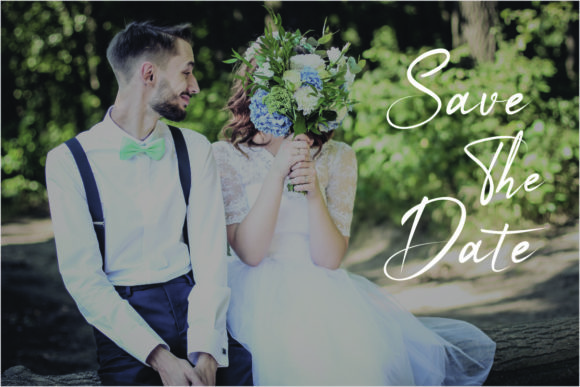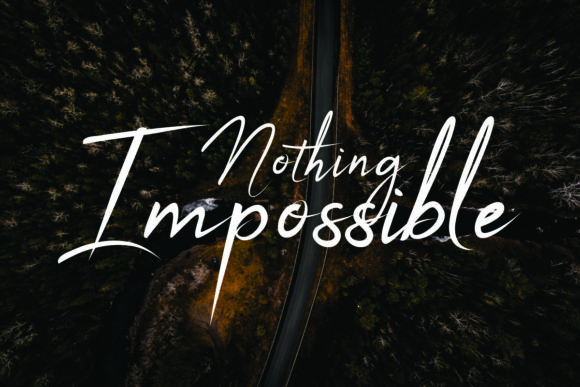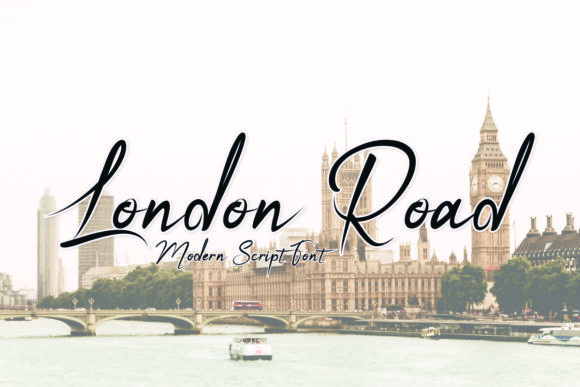
HomeScript FontsLondon Road Font Script Fonts London Road Font FacebookXPinterestWhatsApp London Road Font Poster 2 London Road Font Poster 3 London Road Font Poster 4 About London Road Font London Road is a beautiful and light handwritten font with a lovely style. Get inspired by its timeless charm. DOWNLOAD NOW People also explored Tsamara Font Ragiffen Font Dakmy Font Aimchestar Script Font Rooster Font Romantic Kissing Font Warttolen Font Wanderlust Font Cute My Love Font 310 0 TagsLondon Road Font Previous articleLostmytalk FontNext articleHighlove Font LEAVE A REPLY Cancel reply Comment: Please enter your comment! Name:* Please enter your name here Email:* You have entered an incorrect email address! Please enter your email address here Website: Save my name, email, and website in this browser for the next time I comment. Personal Use Free Good Mood Personal Use Free Read more about this font Hommy You Personal Use Free Read more about this font Fakedes Personal Use Free Read more about this font Bestlife Personal Use Free Read more about this font BLOG Free Fonts Risk: Why Free Fonts Can Be Dangerous for Designers Free Fonts Risk: Why Free Fonts Can Be Dangerous for Designers Using free fonts is a common practice in web and graphic design. However, the... How to Cut Any Font on Cricut: Convert a Font to SVG (Free) Top 10 Handwritten Fonts That Elevate Your Designs The 10 Best Handwriting Fonts to Add Personality to Your Designs